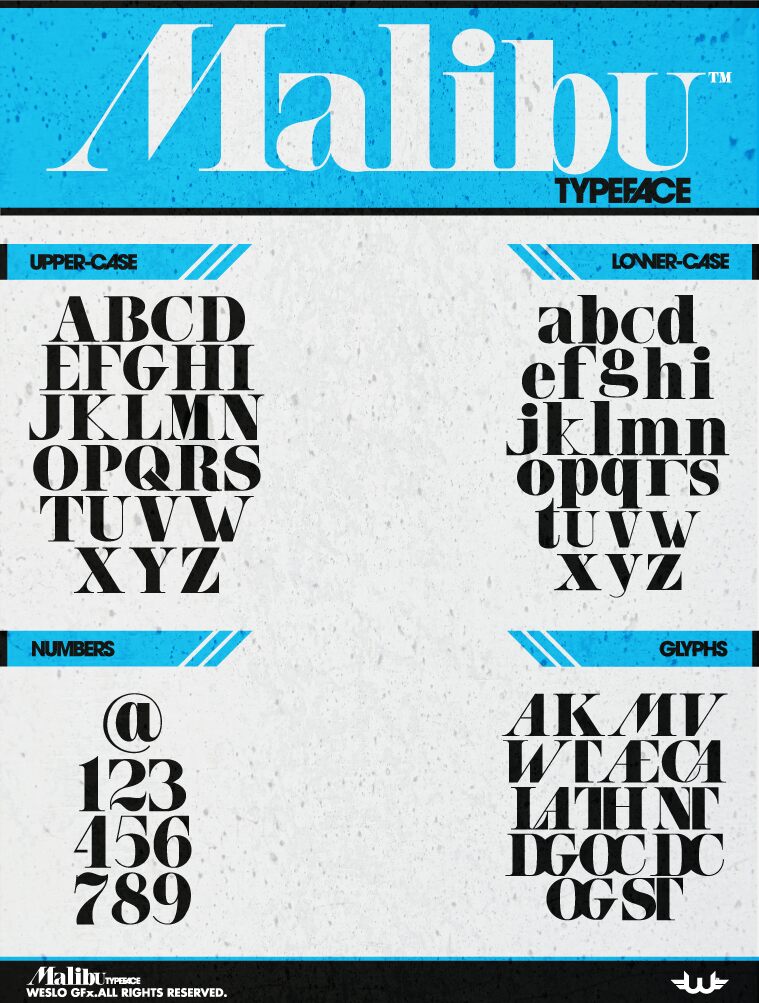
Malibu
Malibu is a bold, condensed serif font that exudes a sense of sophistication and elegance. Designed by Wesley Pastrana, this typeface boasts a distinctive aesthetic, with its sharp, angular serifs and streamlined letterforms. The condensed width lends itself to eye-catching headlines and impactful text, making it a versatile choice for a wide range of design applications, from high-end editorial layouts to modern branding.
The font's bold presence commands attention, while its refined, classic sensibility ensures a timeless appeal. Malibu's unique character and versatility make it a compelling option for designers seeking to infuse their work with a dose of confidence and refinement.